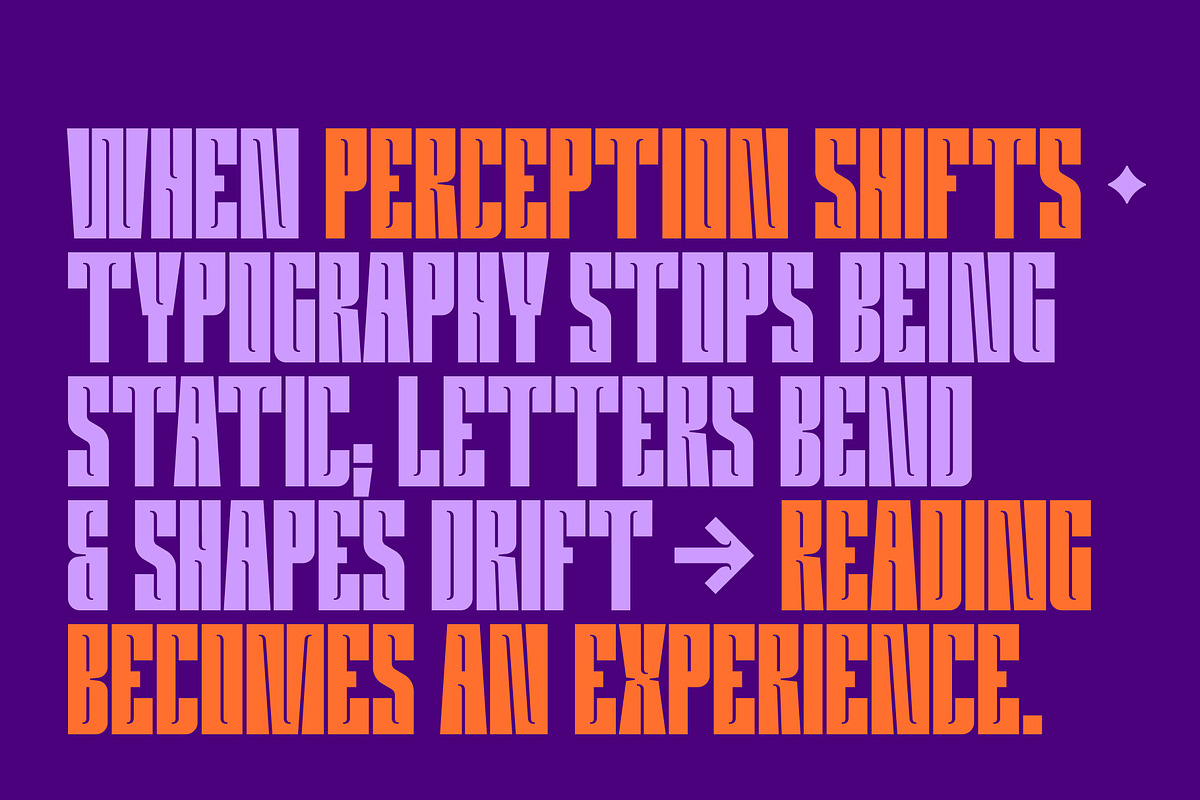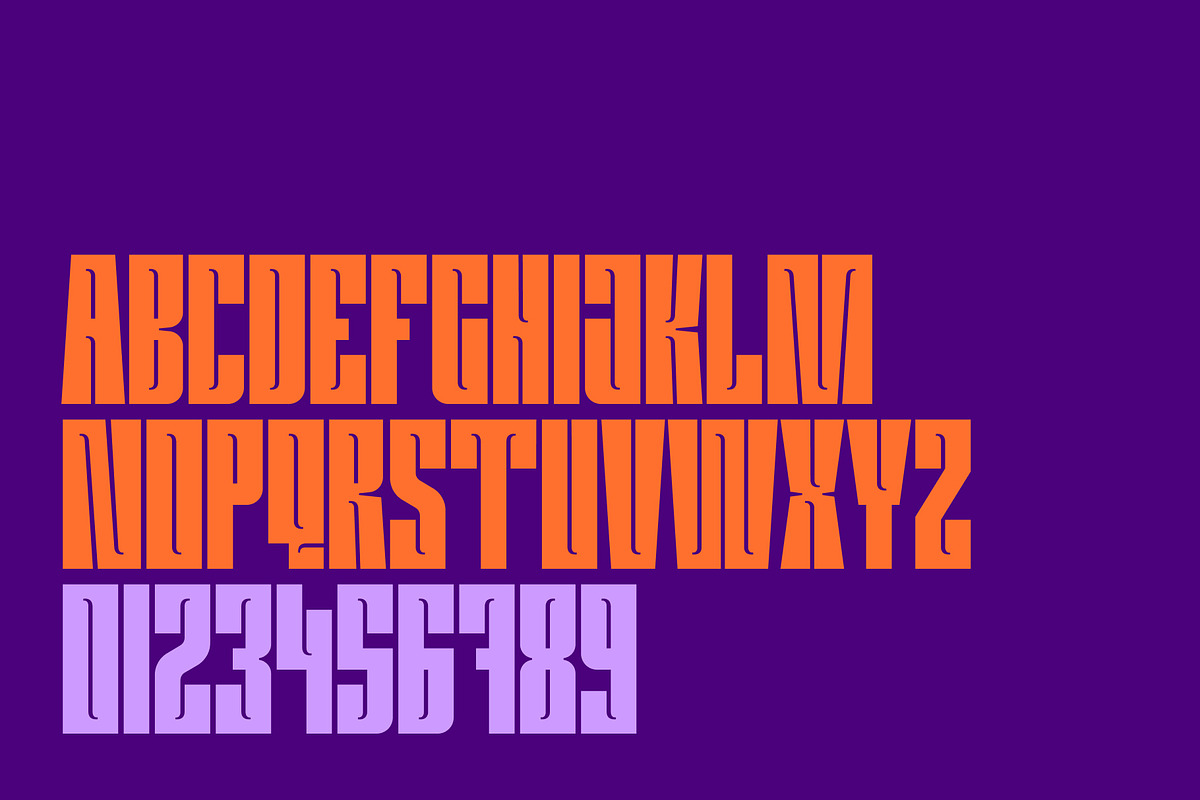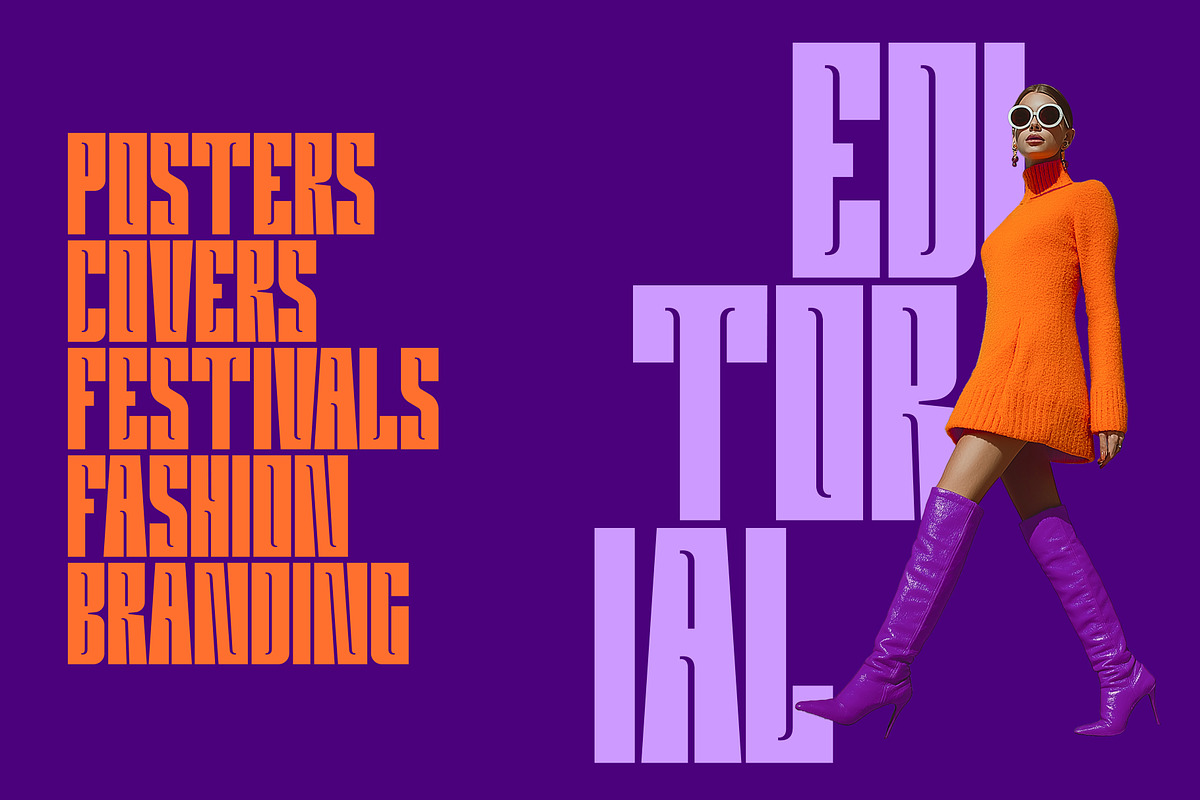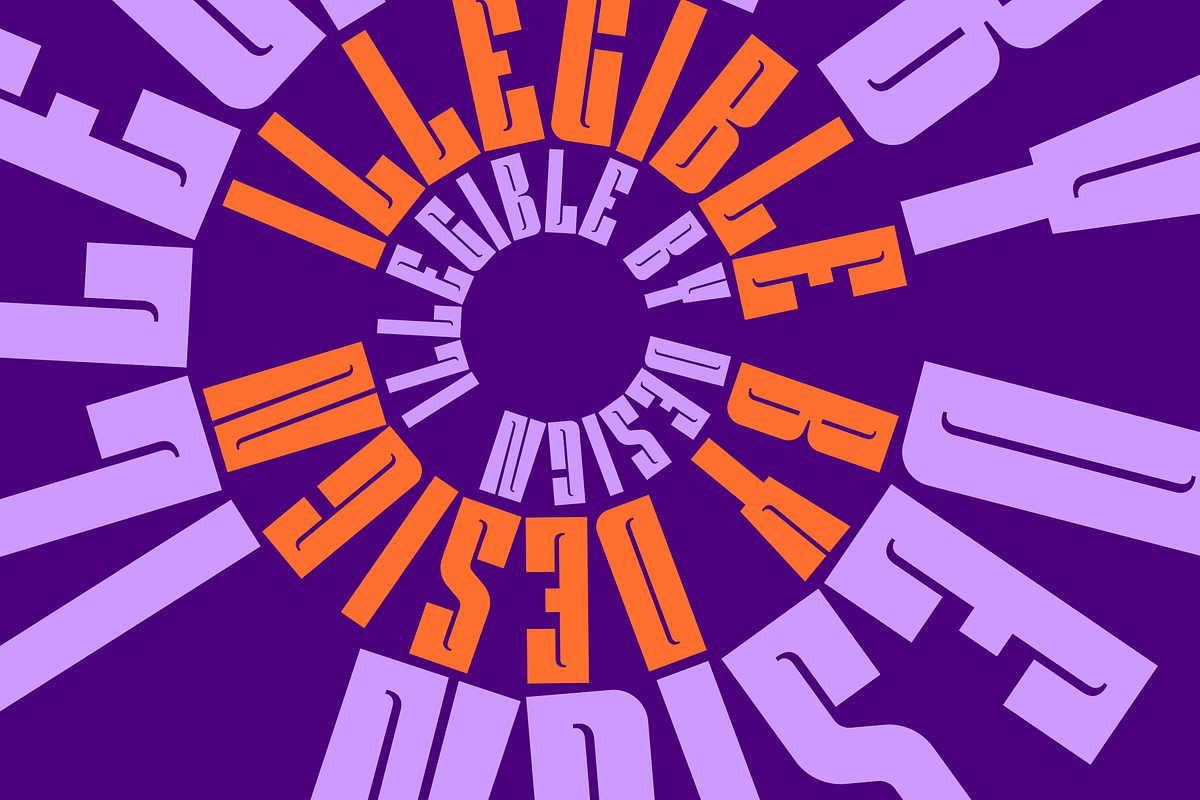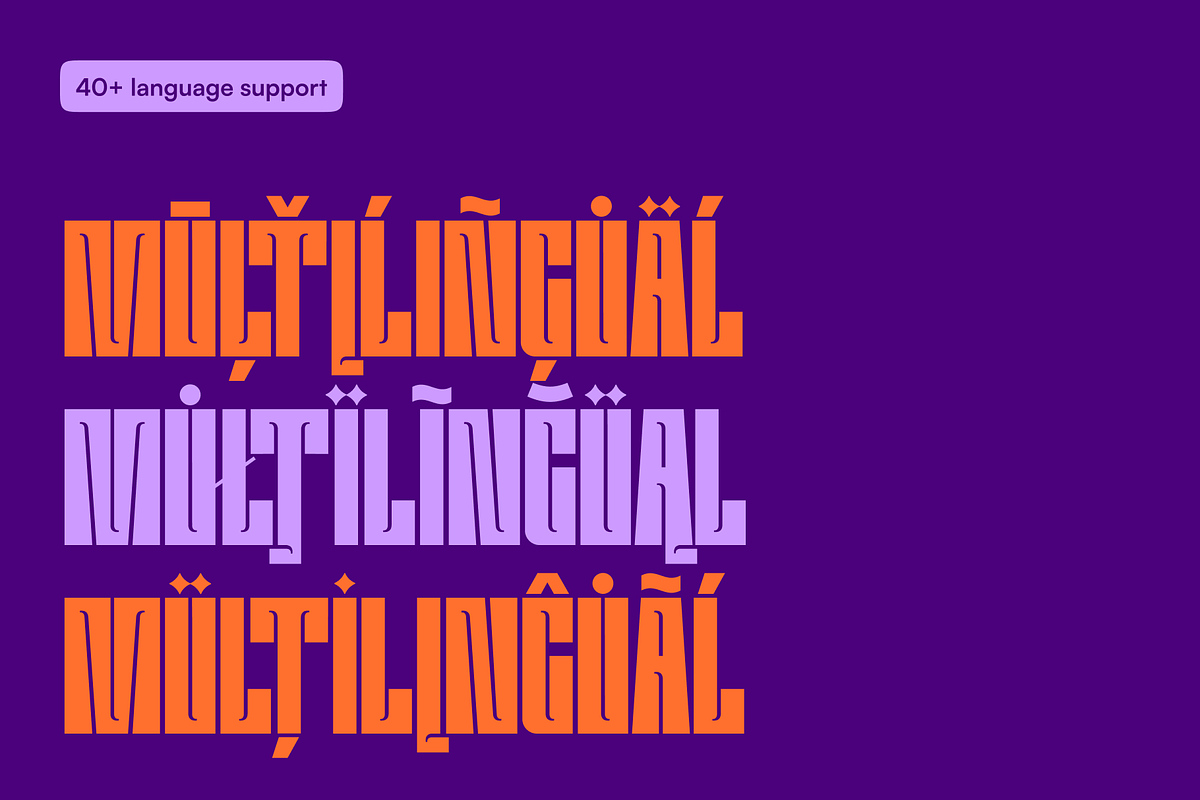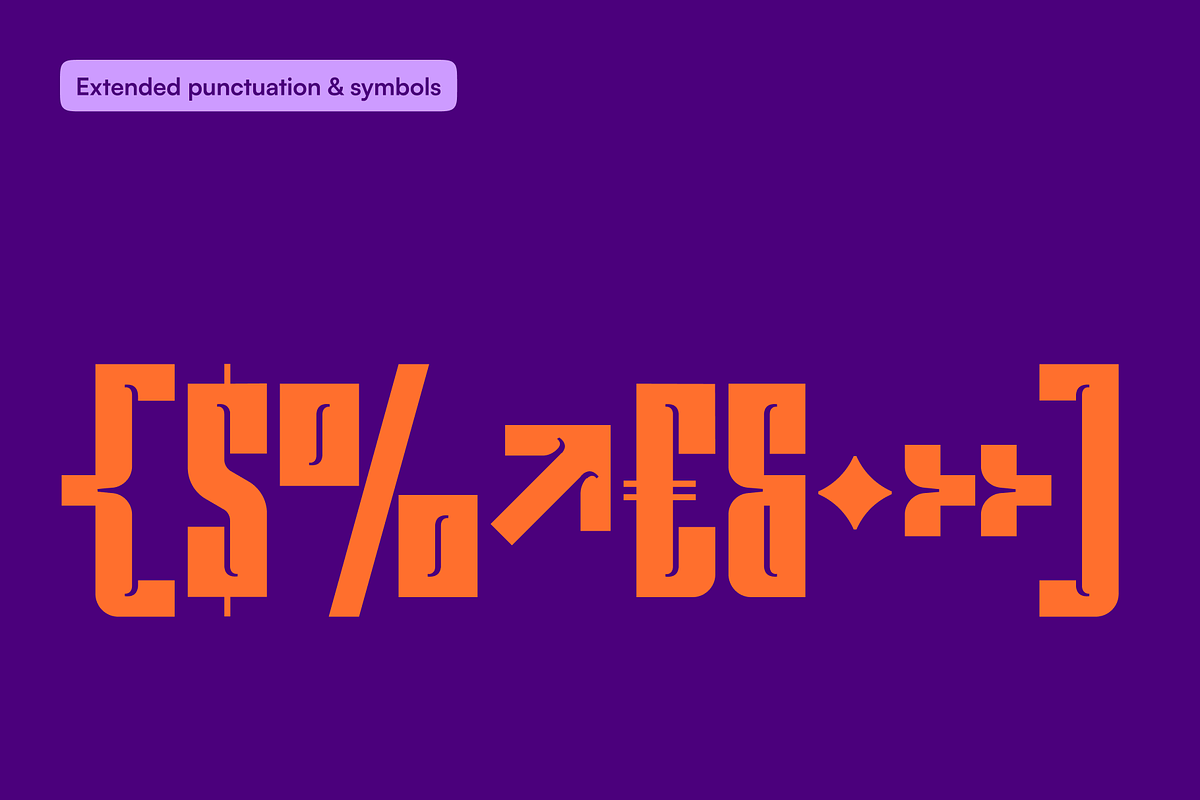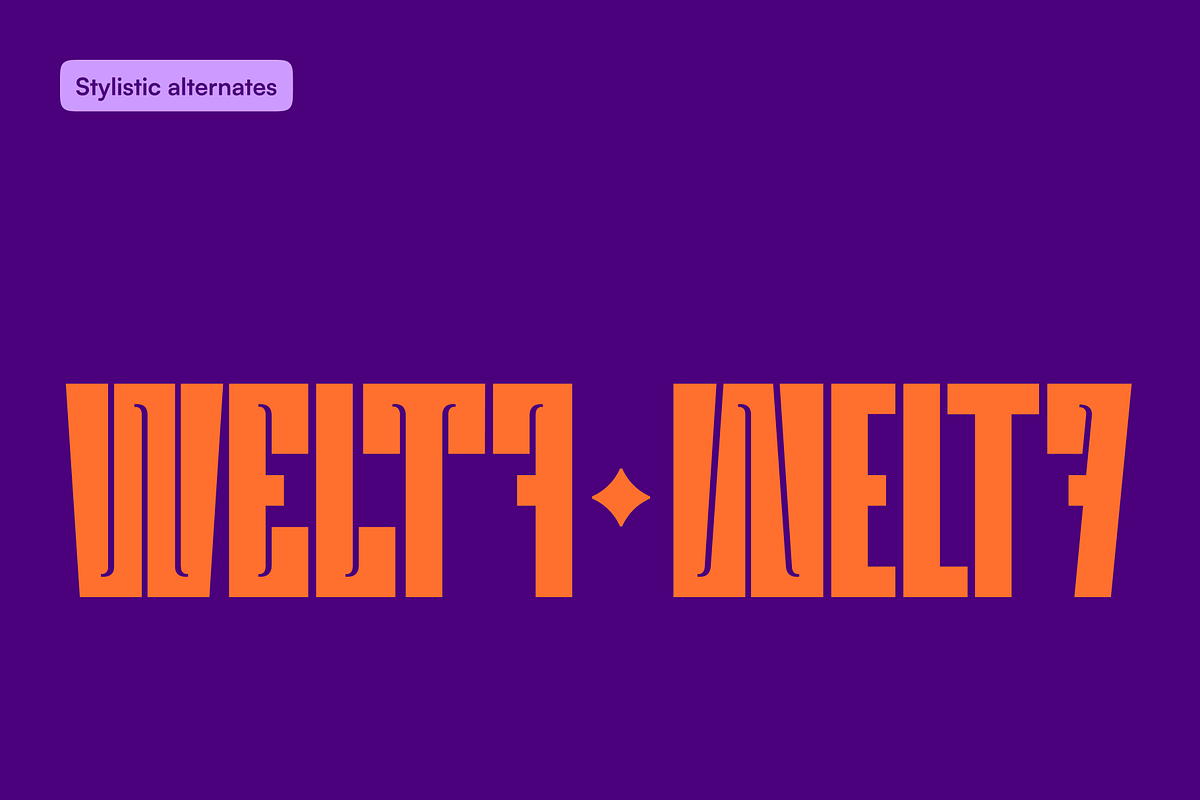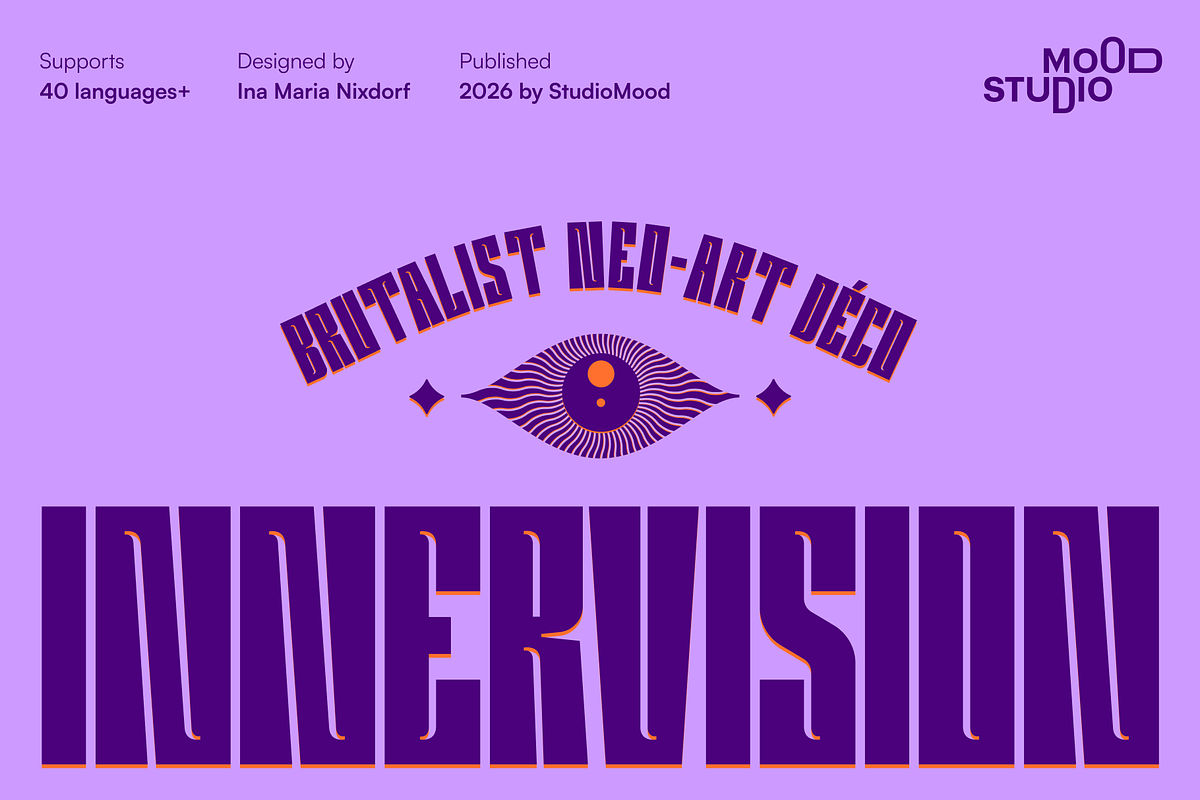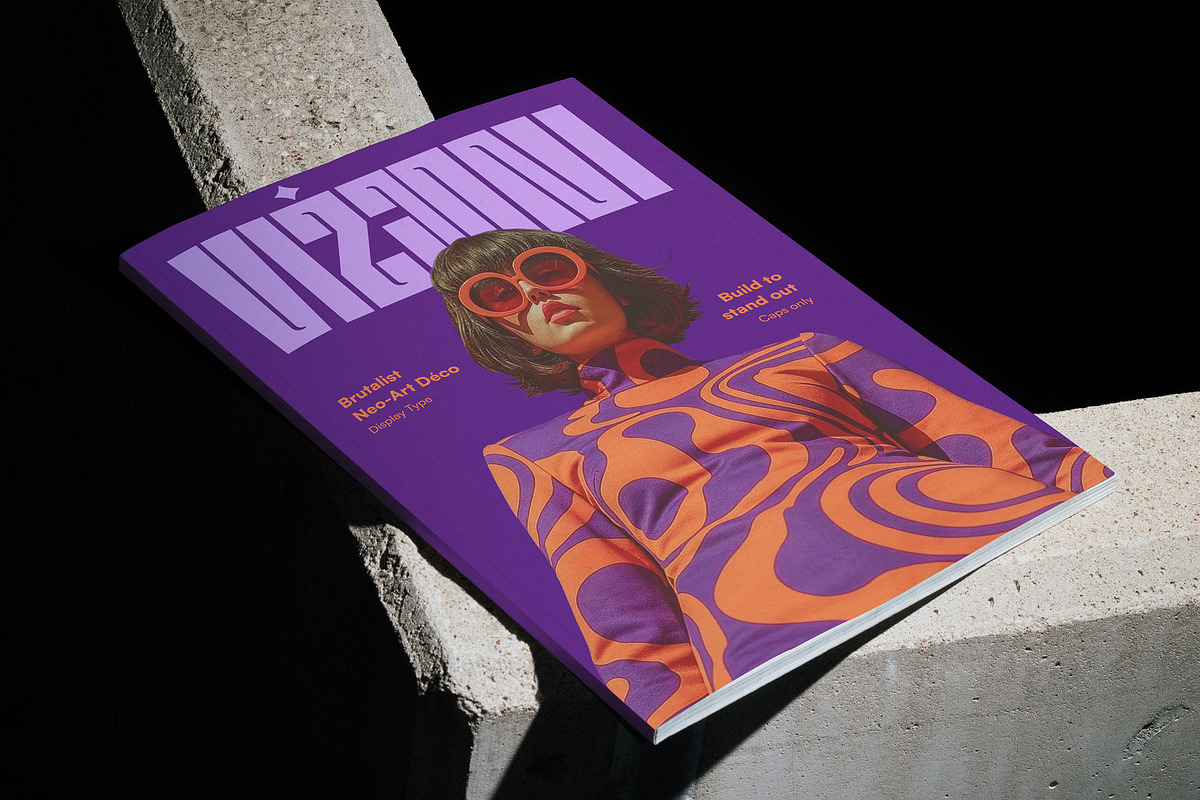
Innervision
Innervision is a brutalist Neo-Art Déco display typeface defined by strict verticality, narrow proportions, and strong visual tension. Its constructed, architectural letterforms stretch toward the sky with extreme vertical proportions, high contrast between thick stems and razor-thin connections, and distinctive ink traps that carve light directly into the letterforms. This shift from individual characters to rhythm and pattern creates bold and dynamic headline compositions that command attention.
Rooted in the spirit of 1960s psychedelic poster culture and the geometric discipline of Art Déco, Innervision holds two opposing forces in tension: architectural rigidity and expressive freedom. It is a typeface for altered states — for layouts that refuse to whisper.
Designed for transformation, Innervision performs exceptionally well in distorted layouts, curved compositions, modular systems, and motion graphics. Its exaggerated vertical structure makes it an ideal candidate for typographic experimentation — distortions, warping, wave effects, and manipulations that would break more conventional typefaces. Stretch it, bend it, let it move.
The typeface is ideal for posters, editorial design, festival graphics, covers, branding, and cultural publications.
Innervision includes stylistic alternates, supports more than 40 languages, and features an extended Latin character set covering Western, Central, and Eastern European languages including German, Polish, Czech, Hungarian, Turkish, Icelandic, and Scandinavian languages. All uppercase letters are mirrored in the lowercase slots for seamless typing without Caps Lock.